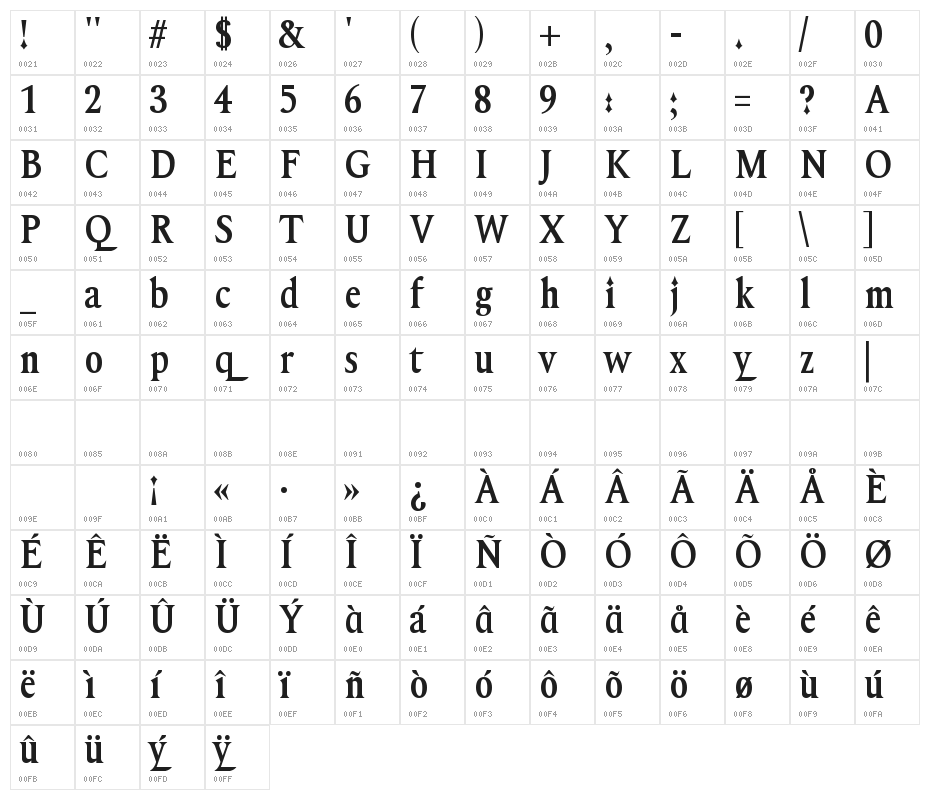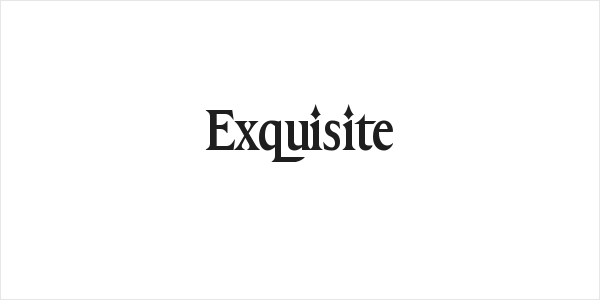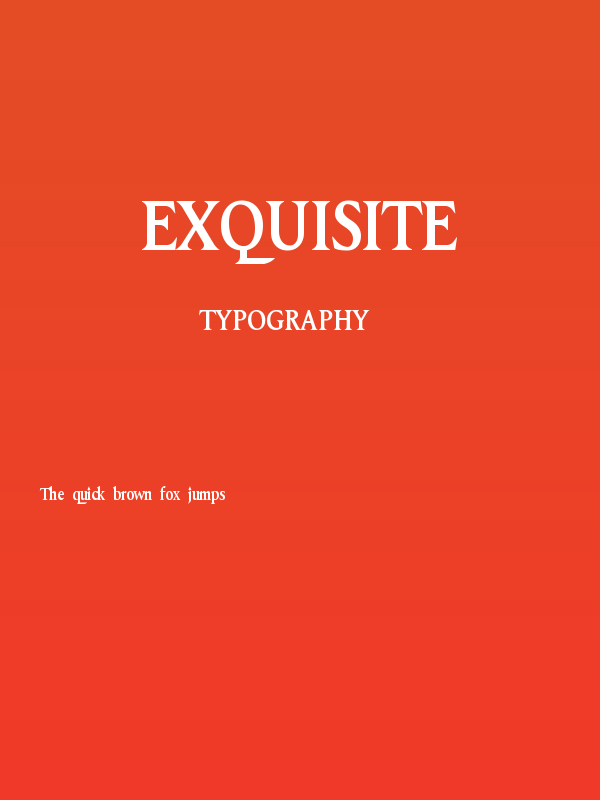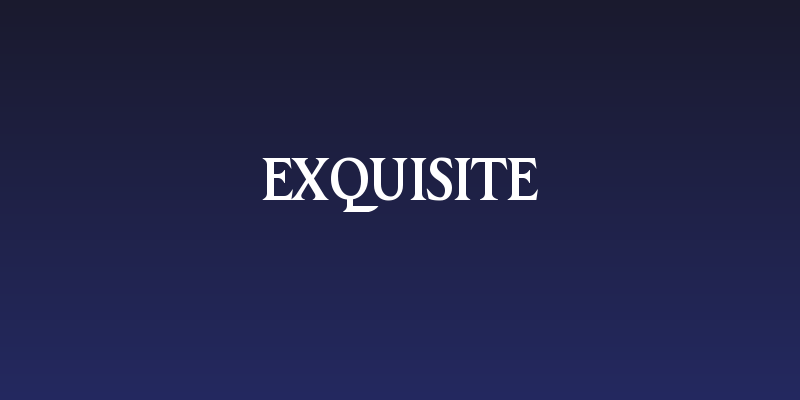
Exquisite Font
Exquisite Description
This font exhibits a classic serif style with strong, elegant lines and a sophisticated appearance. The uppercase letters are bold and authoritative, while the lowercase letters maintain a refined and balanced look. The numerals are clear and distinct, ensuring readability. Special characters are designed with precision, complementing the overall aesthetic. The font's high contrast between thick and thin strokes adds to its timeless appeal, making it suitable for formal and professional applications.
| Proposed Projects | Ideal for book covers, formal invitations, branding for luxury products, and editorial design. |